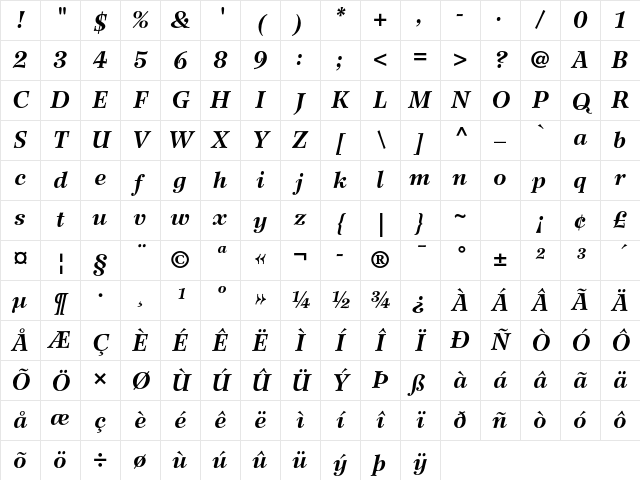
Wilke LT Std 76 Bold Italic
Style: 76 Bold Italic
Designer: Martin Wilke
Design Context for Wilke LT Std
Wilke LT Std is a composed and adaptable typeface that performs quietly and consistently across a wide range of design contexts. The slanted form adds forward momentum and visual energy. Its bold stroke weight gives it real presence on the page.